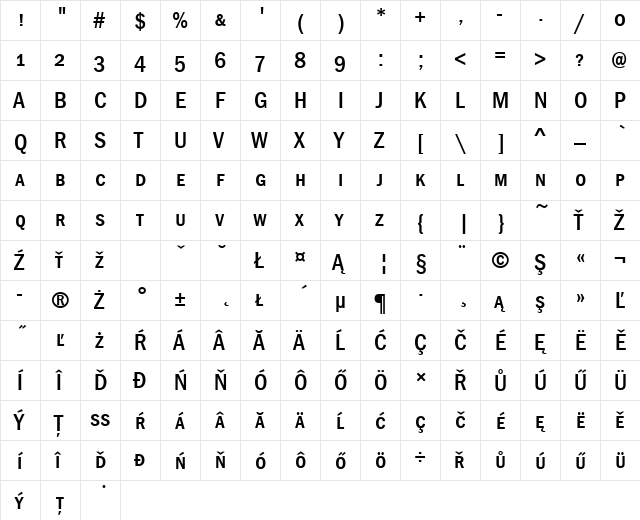
FranklinGotSCItcTEEMedCon Regular
Design Context for FranklinGotSCItcTEEMedCon Typeface
FranklinGotSCItcTEEMedCon takes a measured approach to typography — its balanced proportions and neutral character make it a reliable workhorse for both digital and print work.